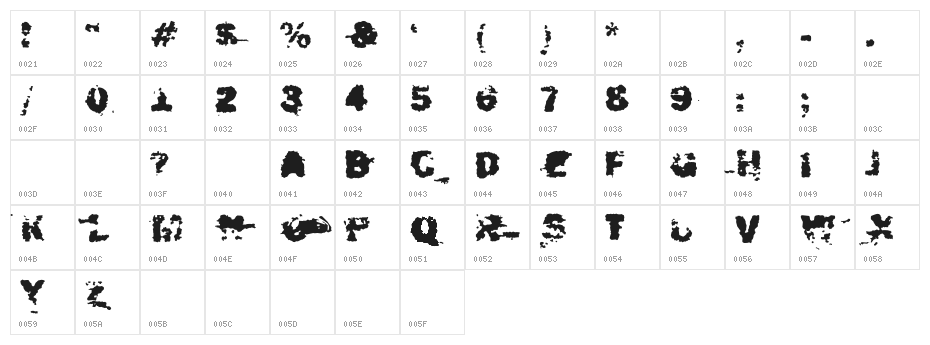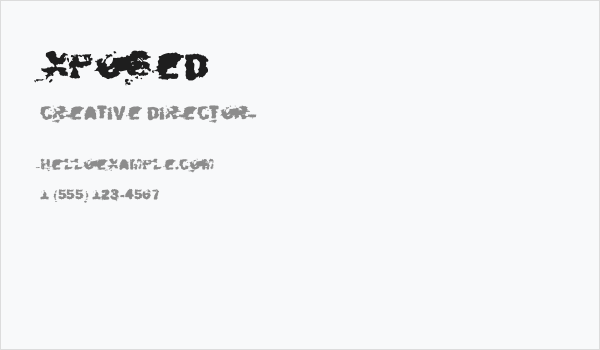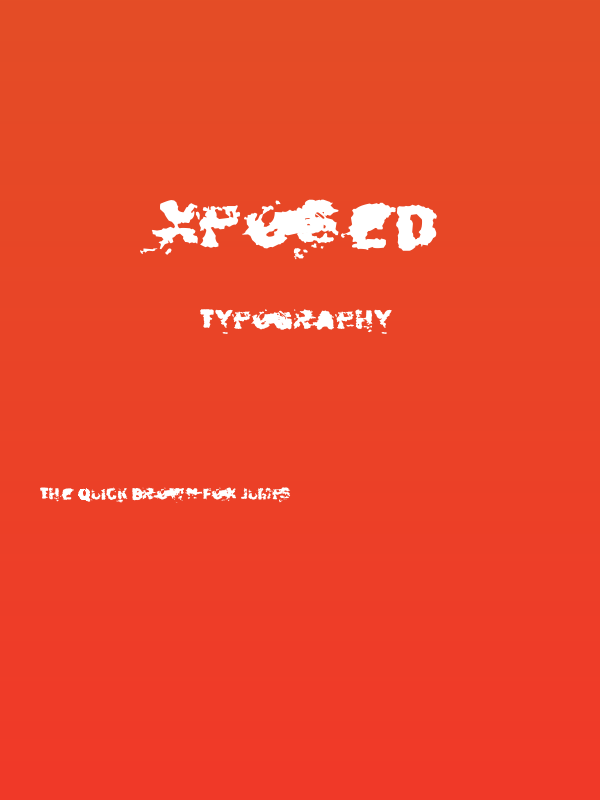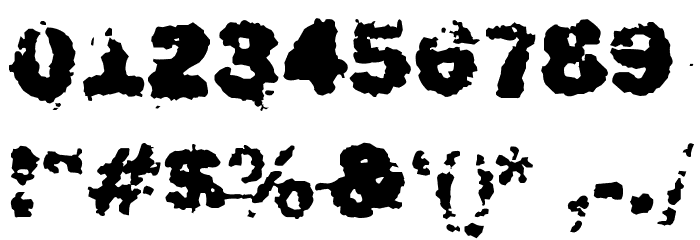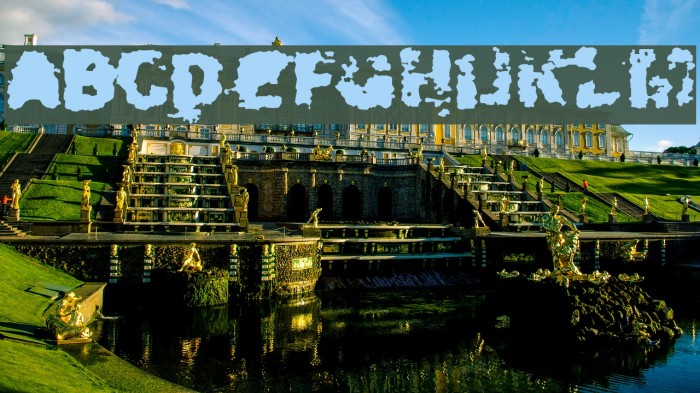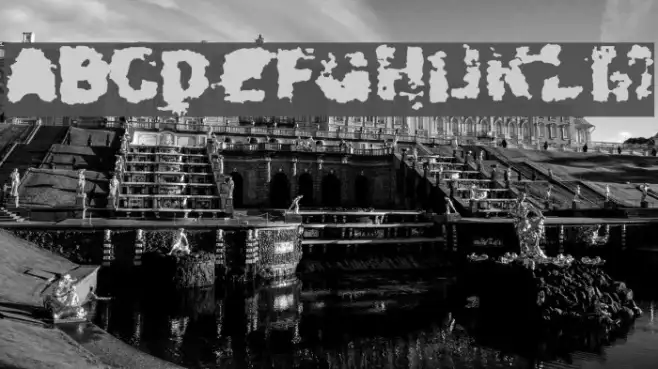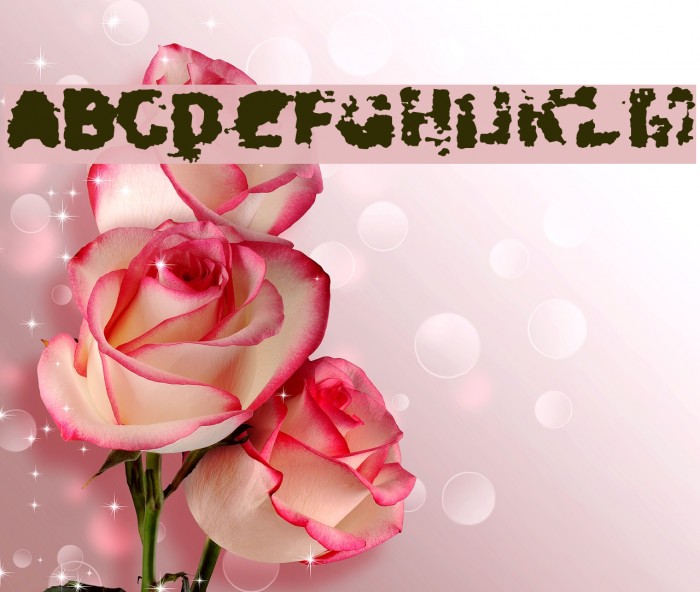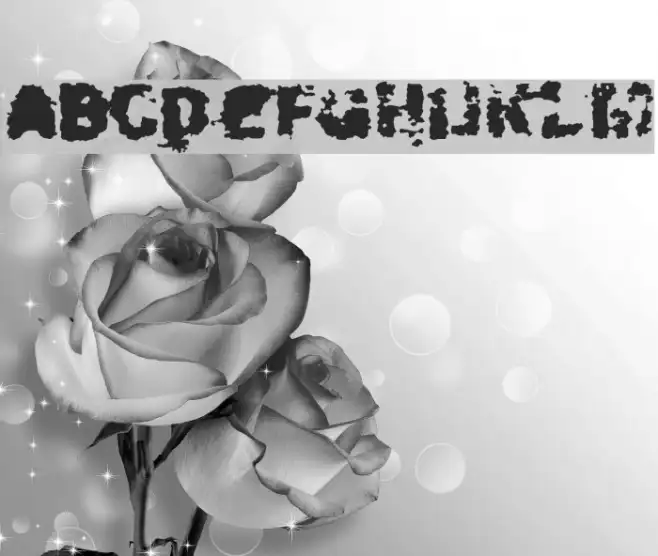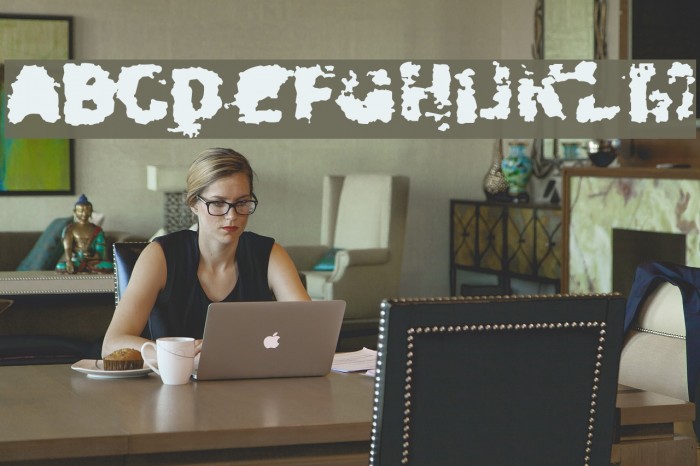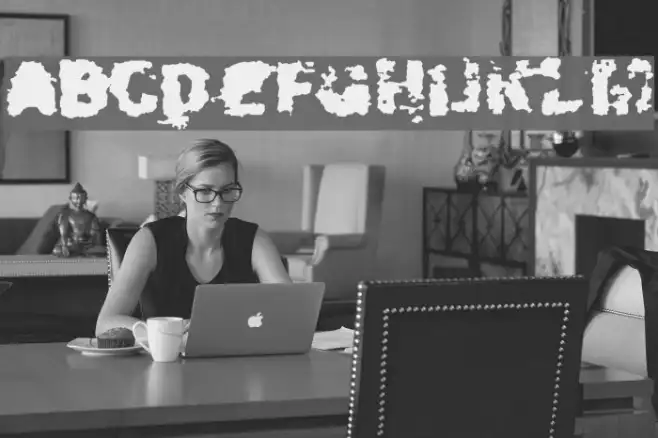
Xposed Font
Xposed Description
This font features a highly distressed and grungy appearance, with characters that appear as if they are eroded or splattered with ink. The edges are irregular and jagged, giving it a raw and chaotic feel. Despite its roughness, the characters are still recognizable, maintaining a balance between legibility and artistic expression. The font's unique style makes it stand out, ideal for projects that require a bold and unconventional look. Its chaotic nature suggests themes of rebellion, destruction, or urban decay, making it suitable for edgy and modern designs.
| Overall Style | Grunge, Urban, Edgy |
| Proposed Projects | Album covers, street art posters, horror movie titles, urban-themed designs. |